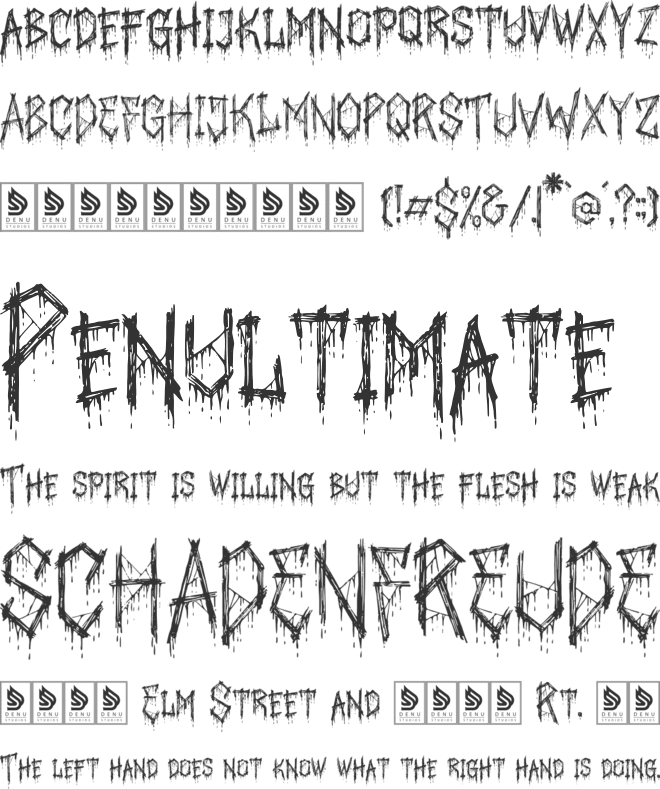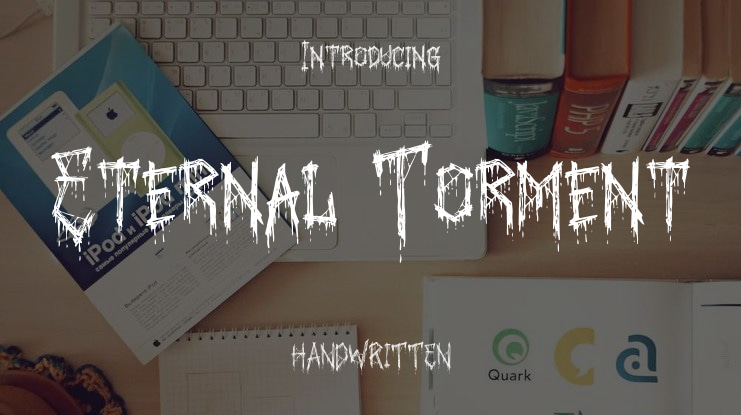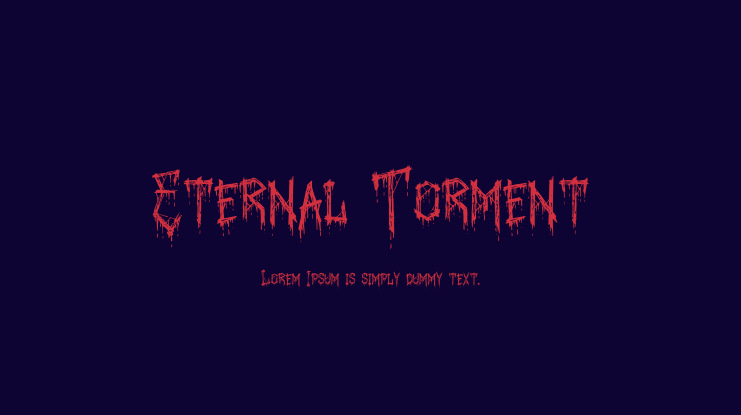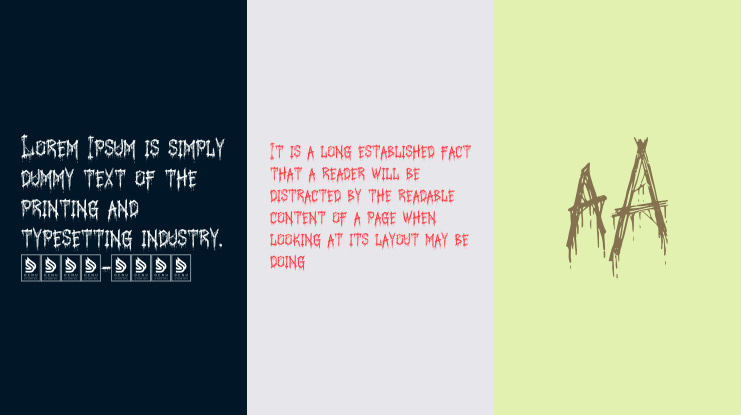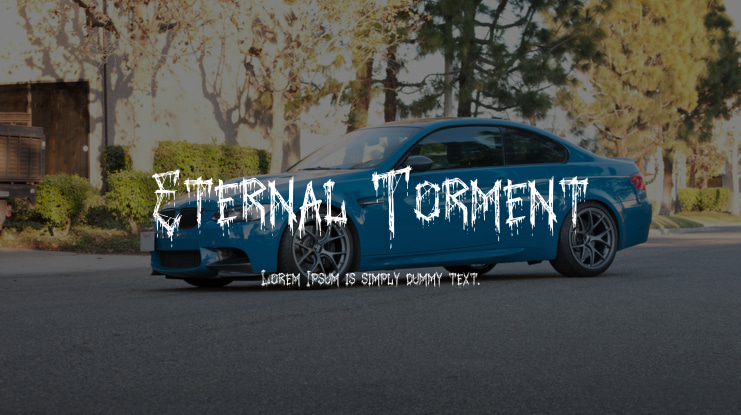
Present Eternal Torment | Horror Font is perfect for a variety of projects including logos, branding, homeware designs, product packaging, mugs, quotes, posters, shopping bags, t-shirts, book covers, name cards, invitations, greeting cards, labels, photography, watermarks, special events, and any other projects that require a touch of horror font style.